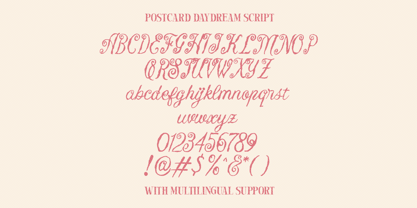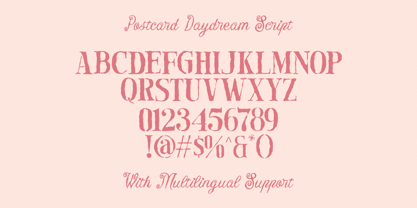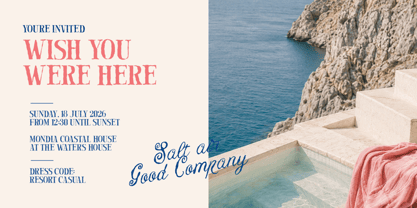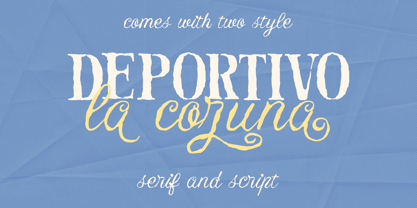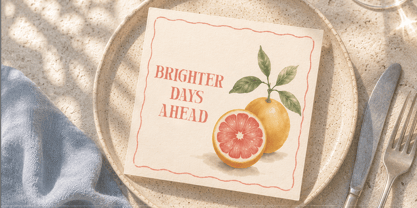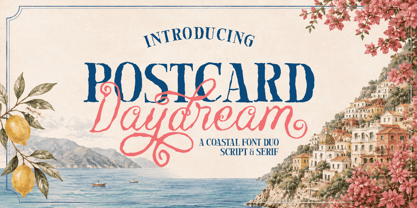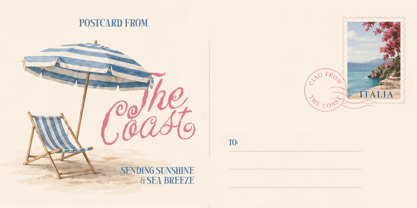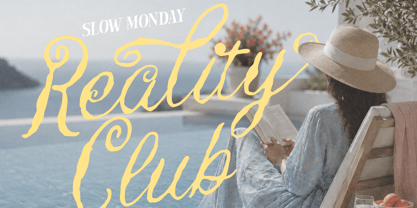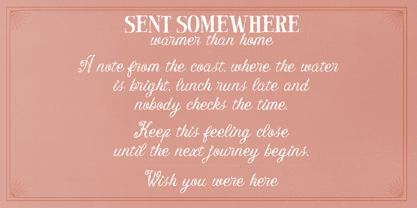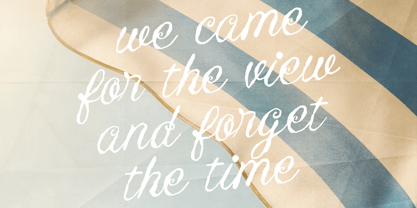
Postcard Daydream
Postcard Daydream is a charming font duo inspired by sunny coastlines, handwritten postcards, and slow summer days by the sea. It combines a textured vintage serif with a flowing script to create a relaxed Mediterranean look that feels warm, nostalgic, and welcoming. The serif brings classic character, while the script adds a soft handwritten touch that feels effortless and personal.
• Uppercase & lowercase
• Numbers and punctuation
• Alternates or Ligatures
• Multilingual Support